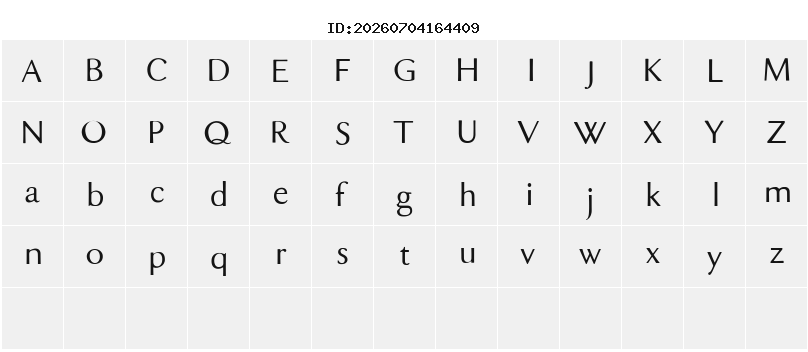
DualisLite Preview
About DualisLite.ttf
DualisLite.ttf is a modern, elegant sans-serif font designed for ultimate readability and visual harmony. Perfect for branding, headlines, web design, and print materials.